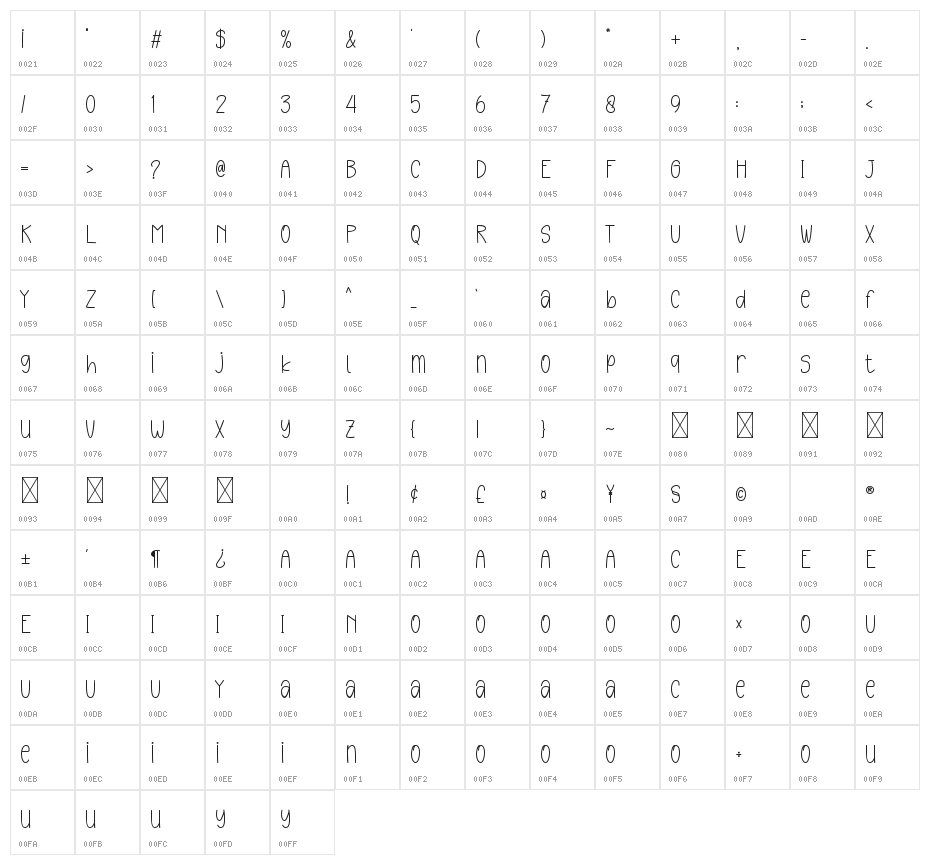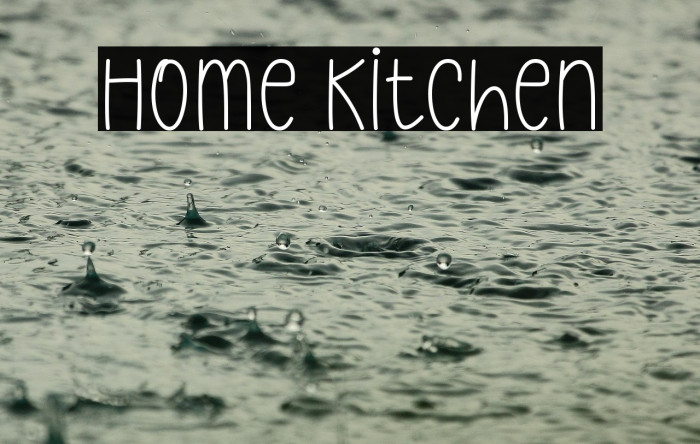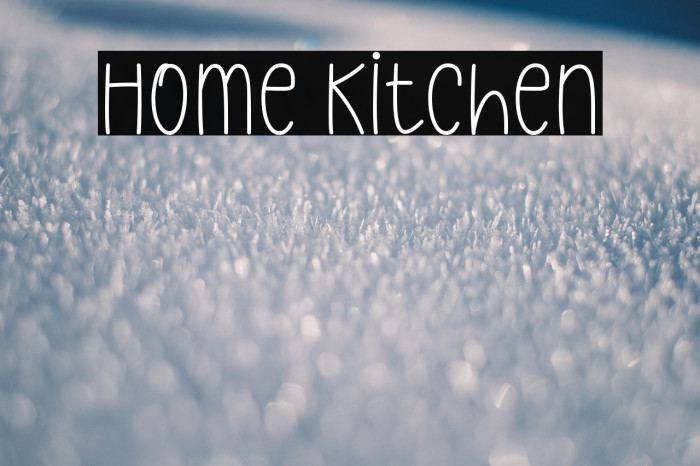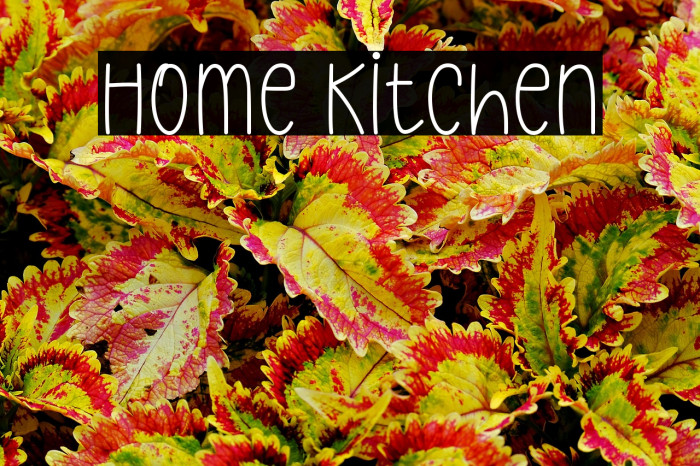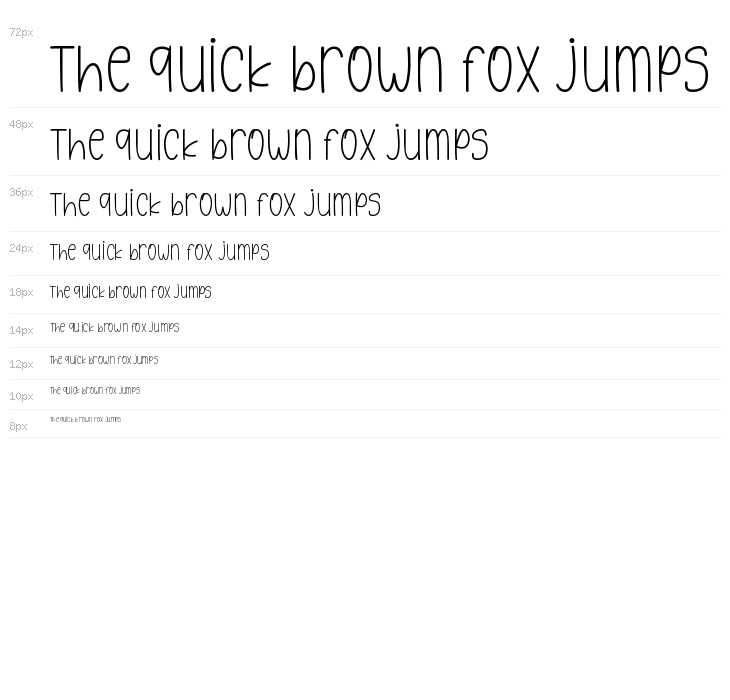
Home Kitchen Font
Home Kitchen Description
A playful, handwritten font with a casual and friendly appearance, featuring rounded edges and consistent stroke width.
| Overall Style | Casual |
| Use Case | Headlines, Informal text, Branding |
| Proposed Projects | Greeting cards, children's books, casual branding. |